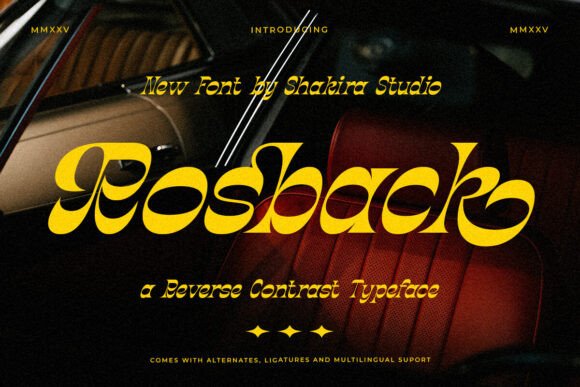
Rosback Font: Elevate Your Design Aesthetics with a Stylish Reverse Contrast Display Serif
In the world of typography, fonts play a crucial role in shaping the visual identity of a brand. With numerous font styles available, designers often seek unique and elegant typefaces that can set their creations apart. Rosback, a display serif font with a distinctive reverse contrast, has emerged as a game-changer in the realm of typography. This stylish font is designed to deliver a modern vintage touch with a strong character, making it perfect for various design applications.
What is Rosback Font?
Rosback is a display serif font that boasts a unique reverse contrast, setting it apart from traditional serif fonts. Its distinctive design makes it an excellent choice for branding, posters, magazines, product packaging, and various print designs that require a touch of elegance and sophistication. The font comes equipped with alternates and ligatures, offering exceptional flexibility in design.
Key Features of Rosback Font
- Unique Reverse Contrast: Rosback’s distinctive reverse contrast design makes it stand out from other serif fonts.
- Alternates and Ligatures: The font comes with a range of alternates and ligatures, providing designers with flexibility in design.
- Multilingual Support: Rosback offers multilingual support, making it highly versatile for global design needs.
- Elegant and Distinctive Look: The font’s elegant and distinctive look makes it perfect for branding, posters, magazines, and product packaging.
Design Applications of Rosback Font
Rosback’s versatility and unique design make it suitable for various design applications. Some of the ideal uses of this font include:
Branding
Rosback is perfect for creating a strong visual identity for brands. Its elegant and distinctive look makes it an excellent choice for logos, business cards, and other branding materials.
Posters and Magazines
The font’s unique reverse contrast design makes it an excellent choice for posters and magazines. It can add a touch of elegance and sophistication to any design.
Product Packaging
Rosback is also suitable for product packaging. Its distinctive design can help products stand out on store shelves and convey a sense of luxury and sophistication.
Print Designs
The font’s versatility makes it suitable for various print designs, including brochures, flyers, and more.
Benefits of Using Rosback Font
Using Rosback font offers several benefits to designers. Some of the advantages of this font include:
Elegance and Sophistication
Rosback’s unique reverse contrast design adds a touch of elegance and sophistication to any design.
Flexibility in Design
The font’s alternates and ligatures provide designers with flexibility in design, allowing them to create unique and creative designs.
Multilingual Support
Rosback’s multilingual support makes it highly versatile for global design needs.
High-Quality Design
The font’s high-quality design ensures that it looks great in various design applications.
Rosback font is a stylish reverse contrast display serif that offers a unique and elegant look. Its flexibility in design, multilingual support, and high-quality design make it perfect for various design applications, including branding, posters, magazines, product packaging, and print designs. By using Rosback font, designers can elevate their design aesthetics and create visually stunning designs that stand out.
Final Thoughts
In conclusion, Rosback font is an excellent choice for designers seeking a unique and elegant typeface. Its distinctive reverse contrast design, alternates, and ligatures make it a versatile font that can be used in various design applications. With its multilingual support and high-quality design, Rosback font is an excellent addition to any designer’s font library.